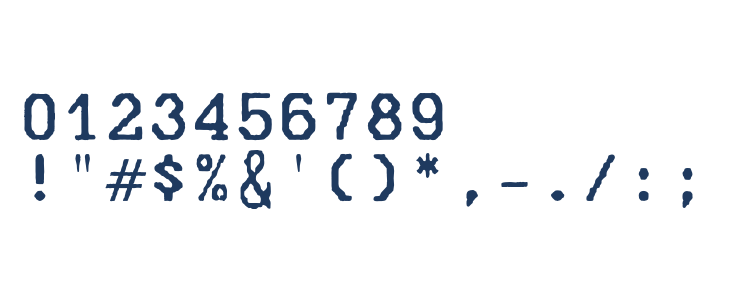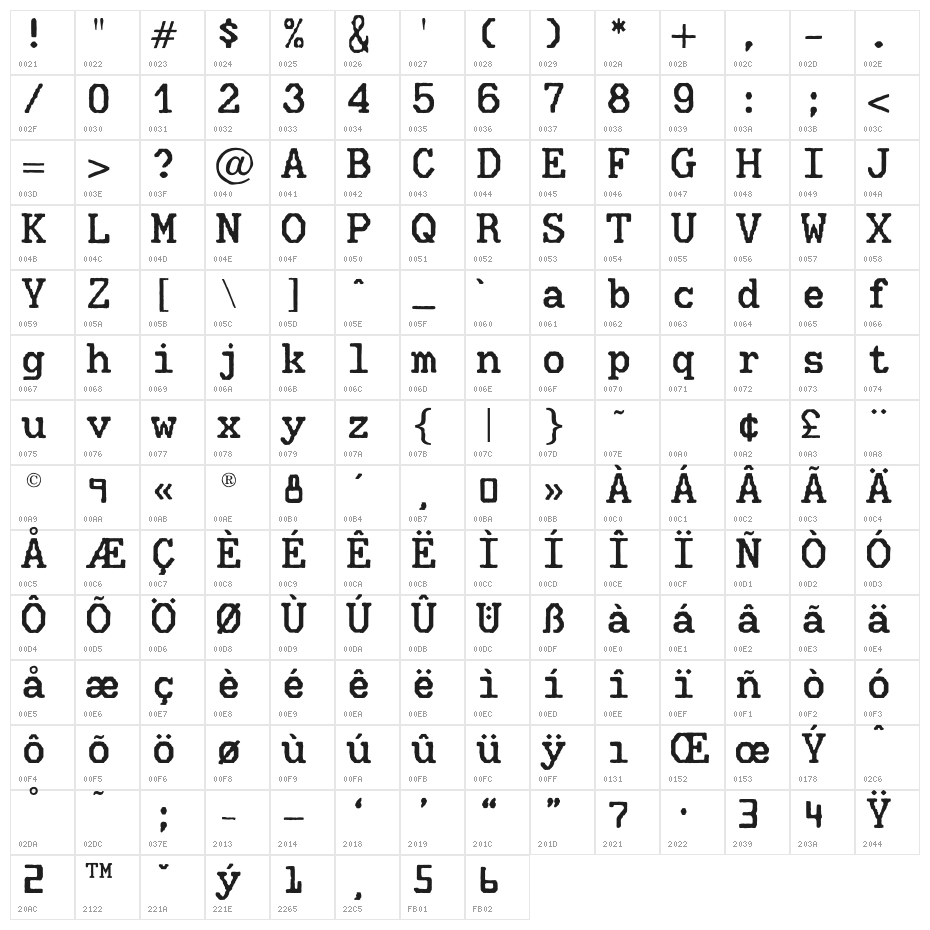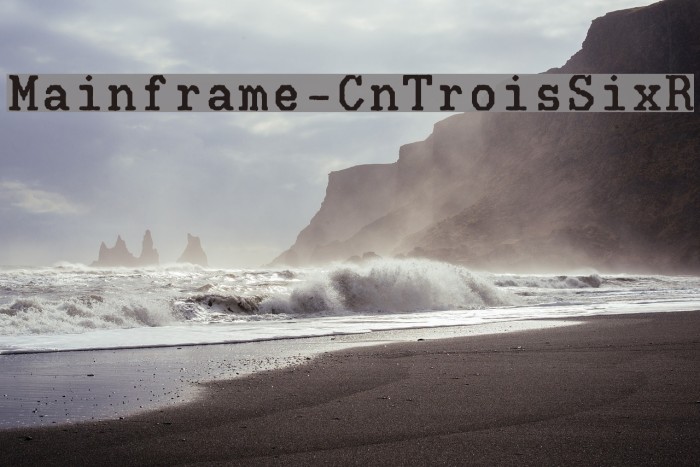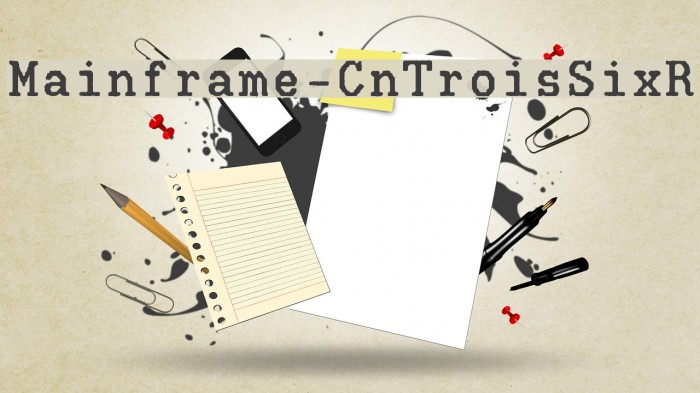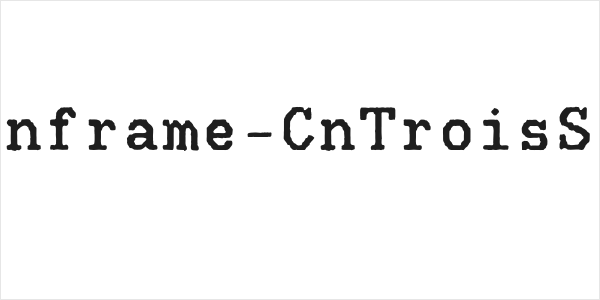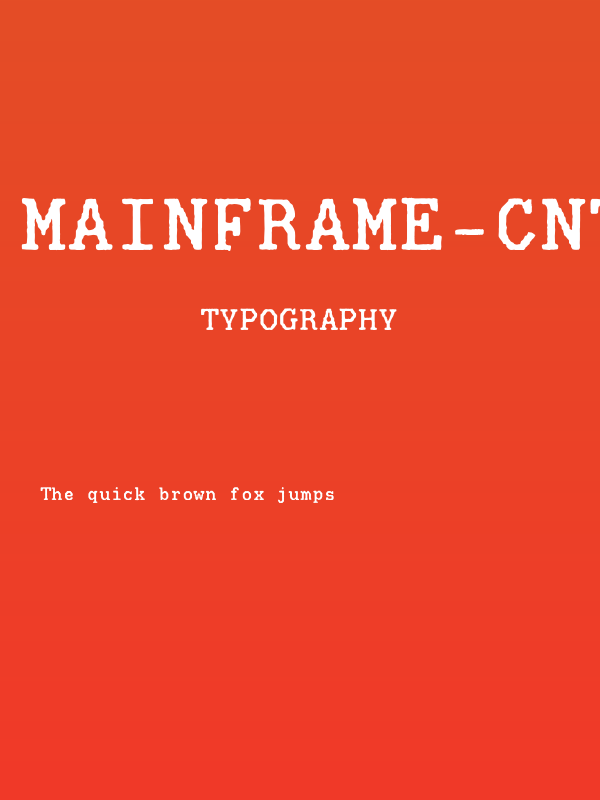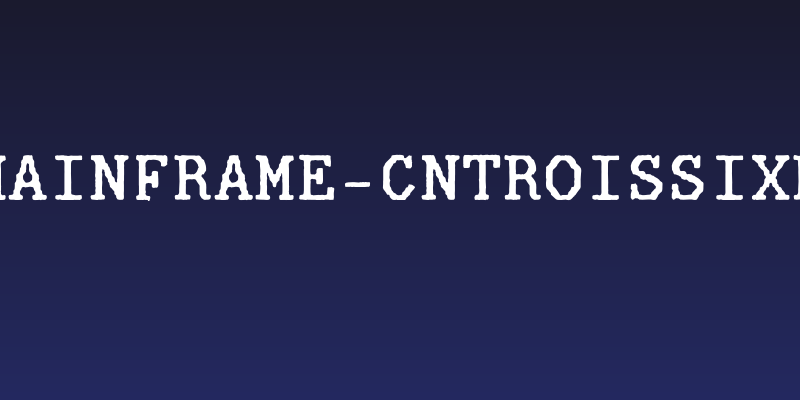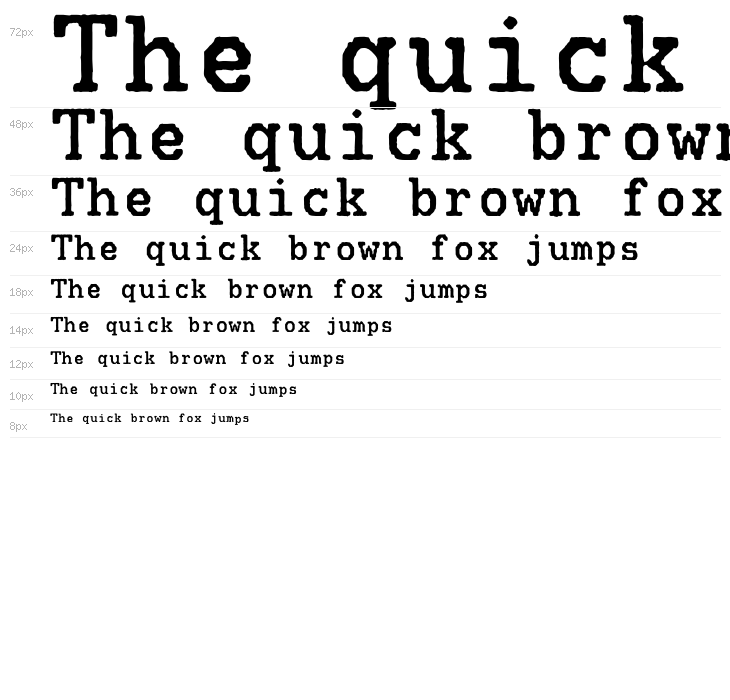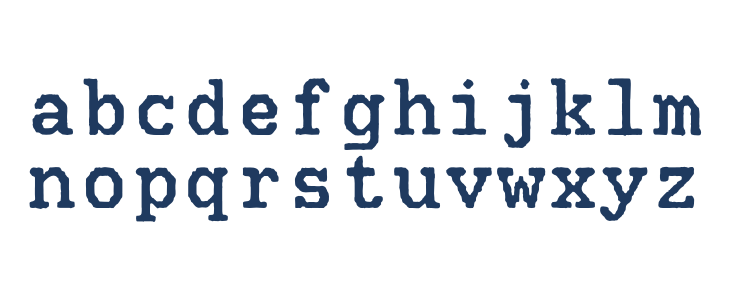
Mainframe-CnTroisSixR Font
Mainframe-CnTroisSixR Description
This typeface exhibits a distinctive, rugged appearance with a monospaced design, reminiscent of typewriter fonts. Each character is uniformly spaced, contributing to a mechanical and structured aesthetic. The strokes are bold and slightly irregular, giving a vintage, worn-out feel. The uppercase and lowercase letters maintain a consistent height, enhancing readability while preserving a unique charm. The numerals and special characters follow the same stylistic cues, ensuring a cohesive look across all glyphs. This font's design is ideal for projects that require a retro or industrial vibe, offering a blend of functionality and style.
| Use Case | Headlines, Logos, Coding interfaces |
| Proposed Projects | Ideal for retro-themed designs, coding interfaces, industrial branding, and vintage posters. |